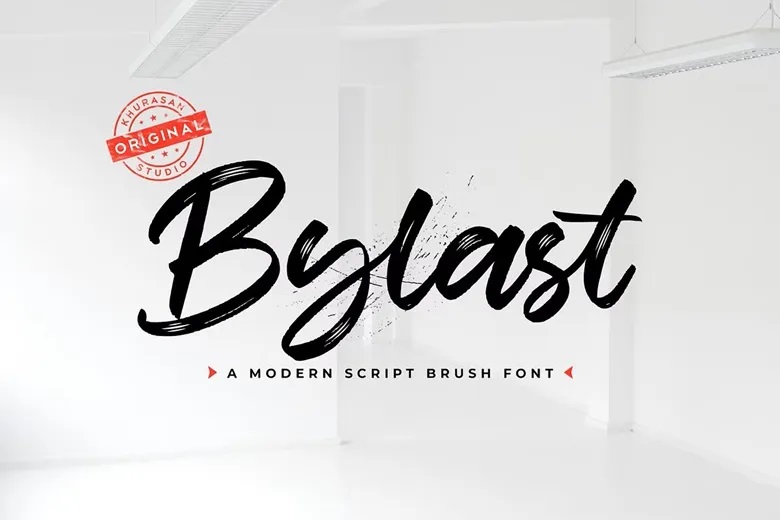
Bylast Font
Bylast is a script handwriting font with a natural brush effect, designed to show the beauty of real hand-lettering. Each stroke looks lively, smooth, and full of personality. This font adds a true handwritten charm, giving your designs a warm, stylish, and high-quality feel.
Bylast is great for logos, branding, packaging, quotes, social media, wedding designs, and other creative projects. It gives your work a personal and artistic touch that helps it stand out.
The smooth connections and lively brush texture bring movement and emotion to your text, making it feel more human and memorable.
Bylast Brush Script Font